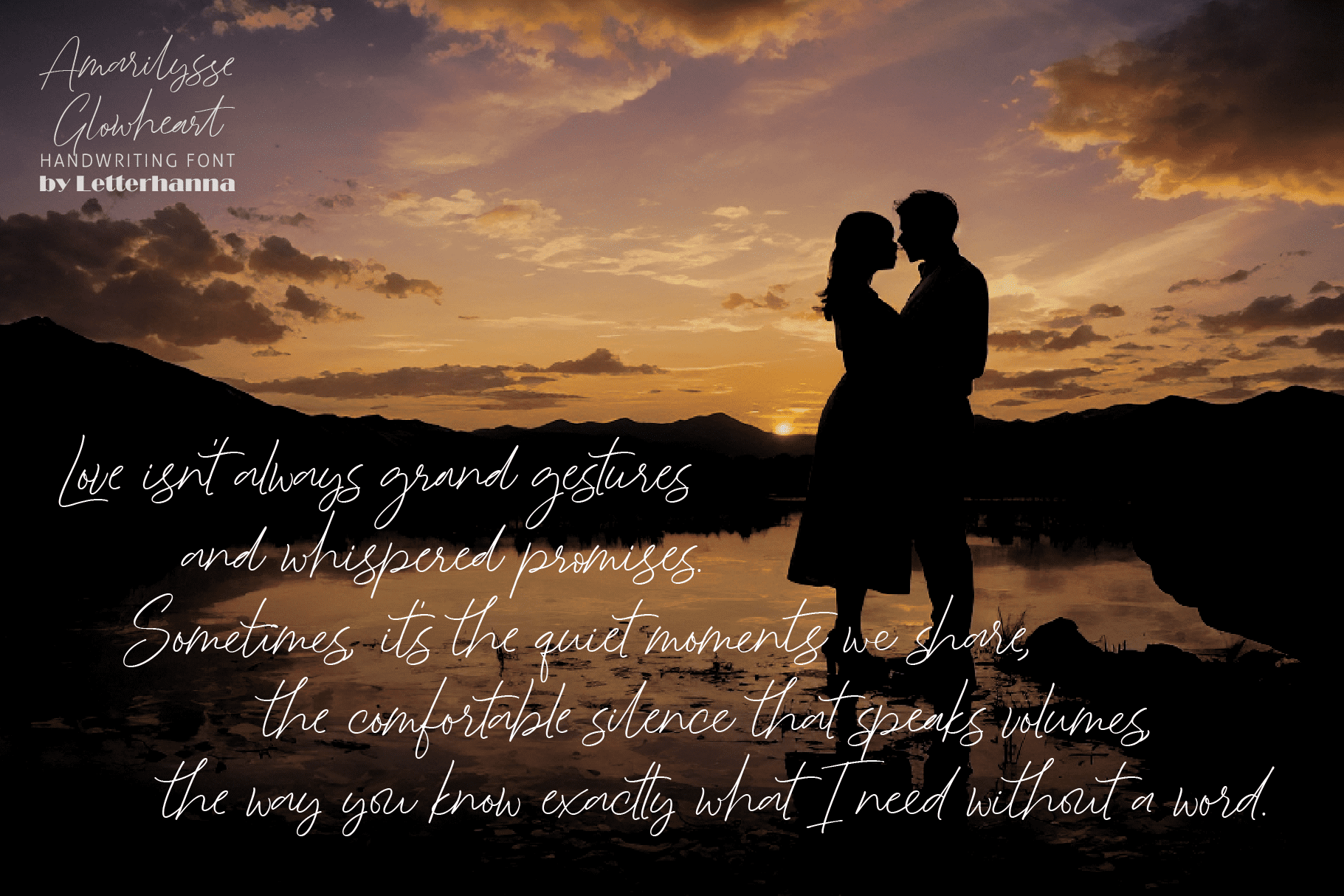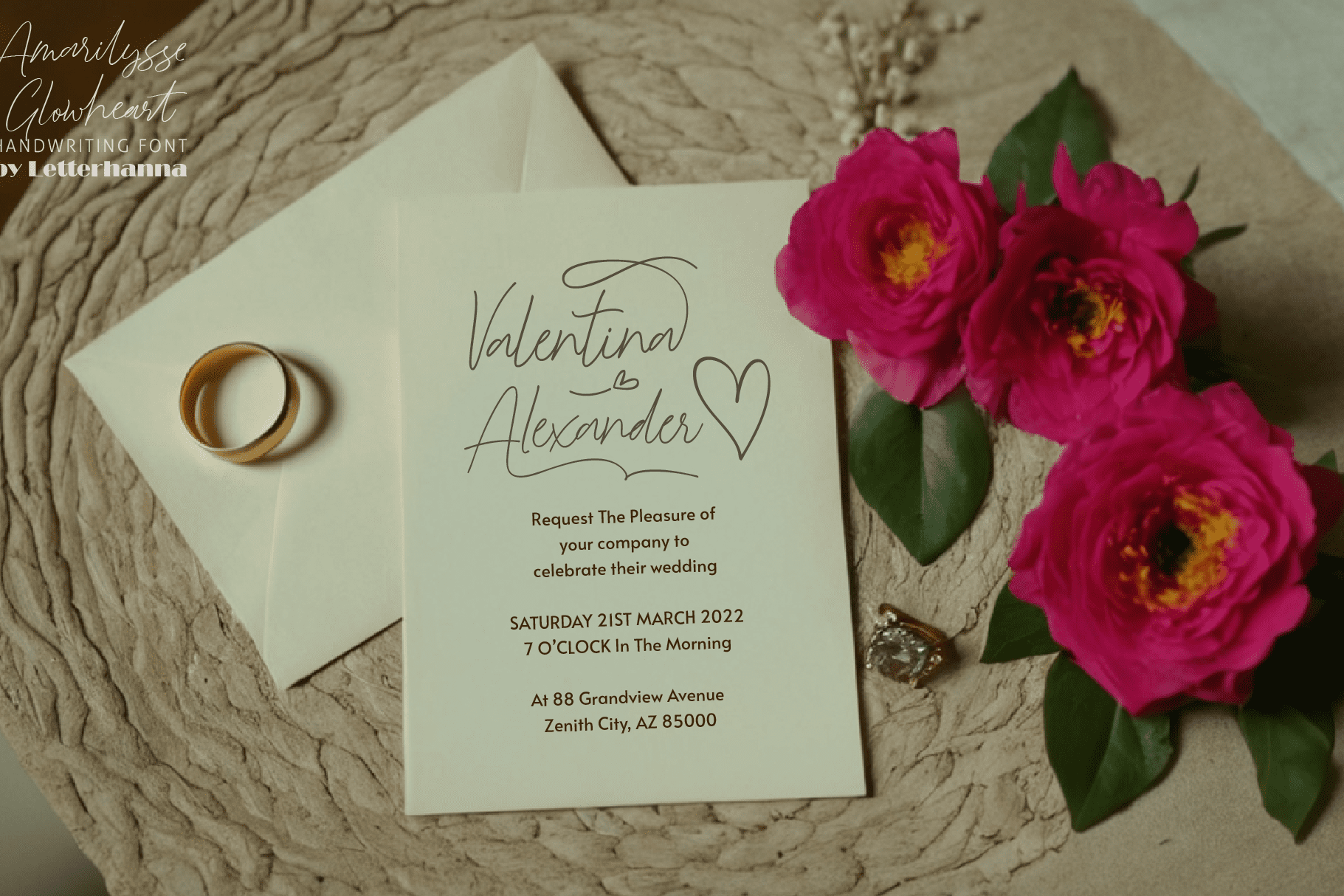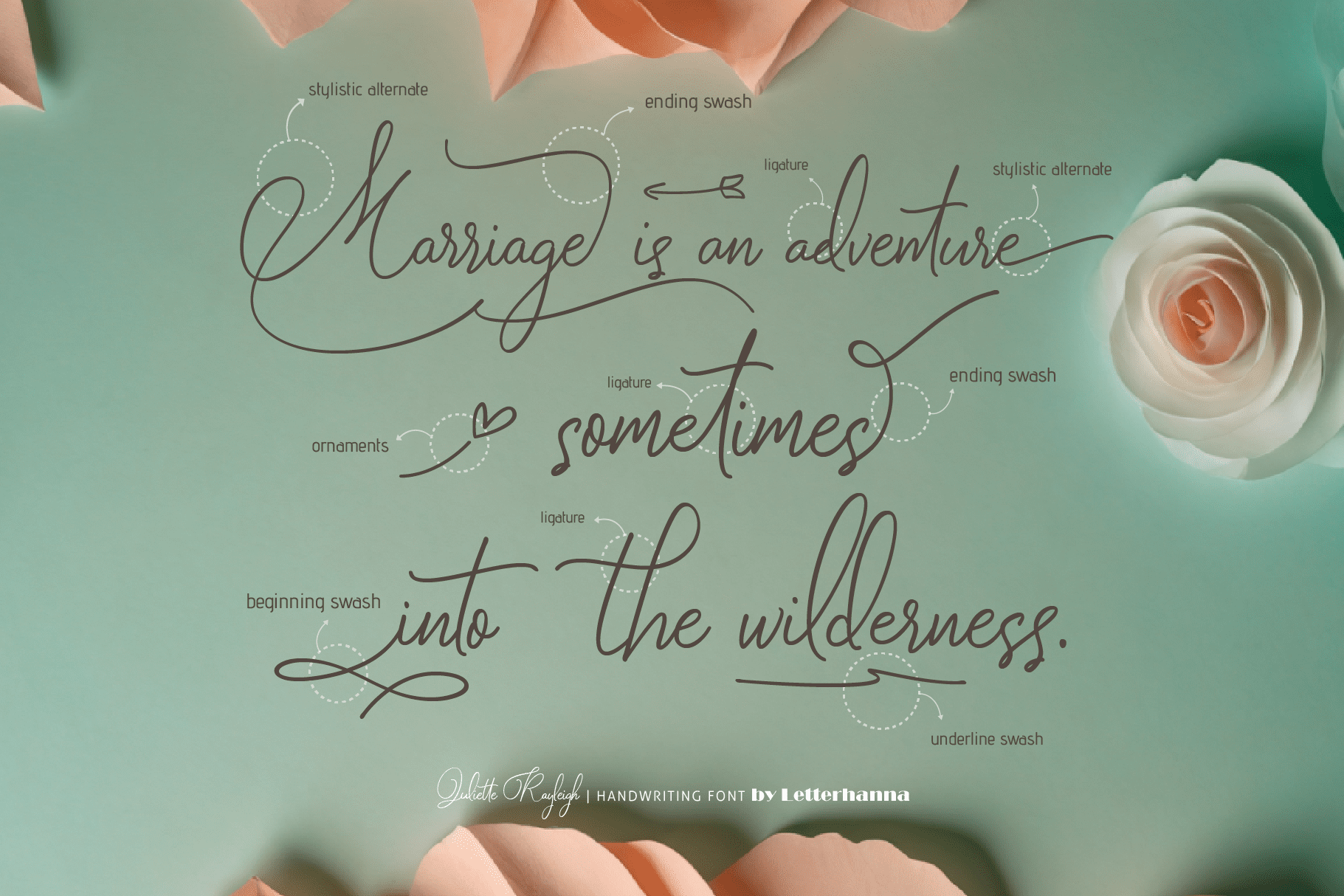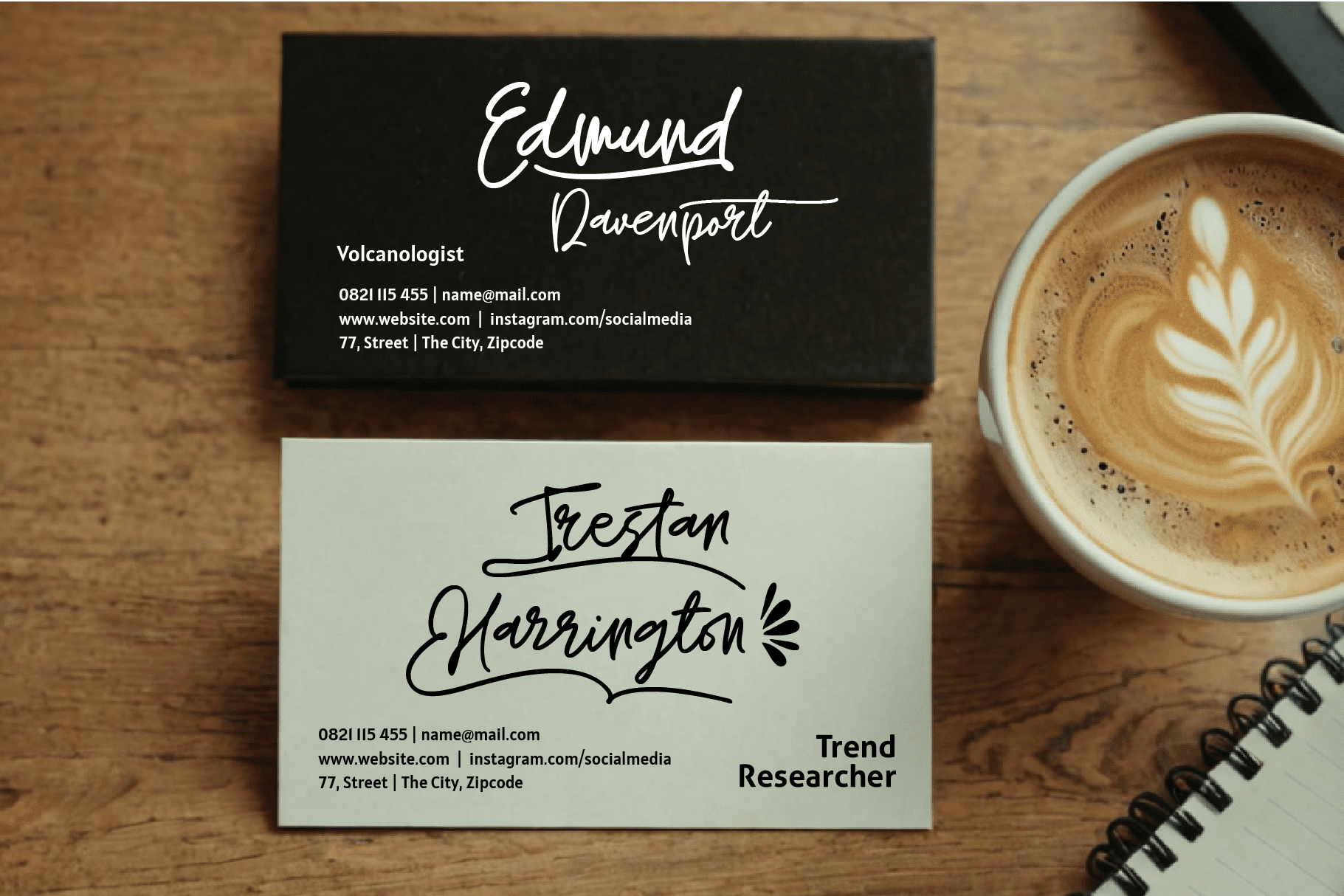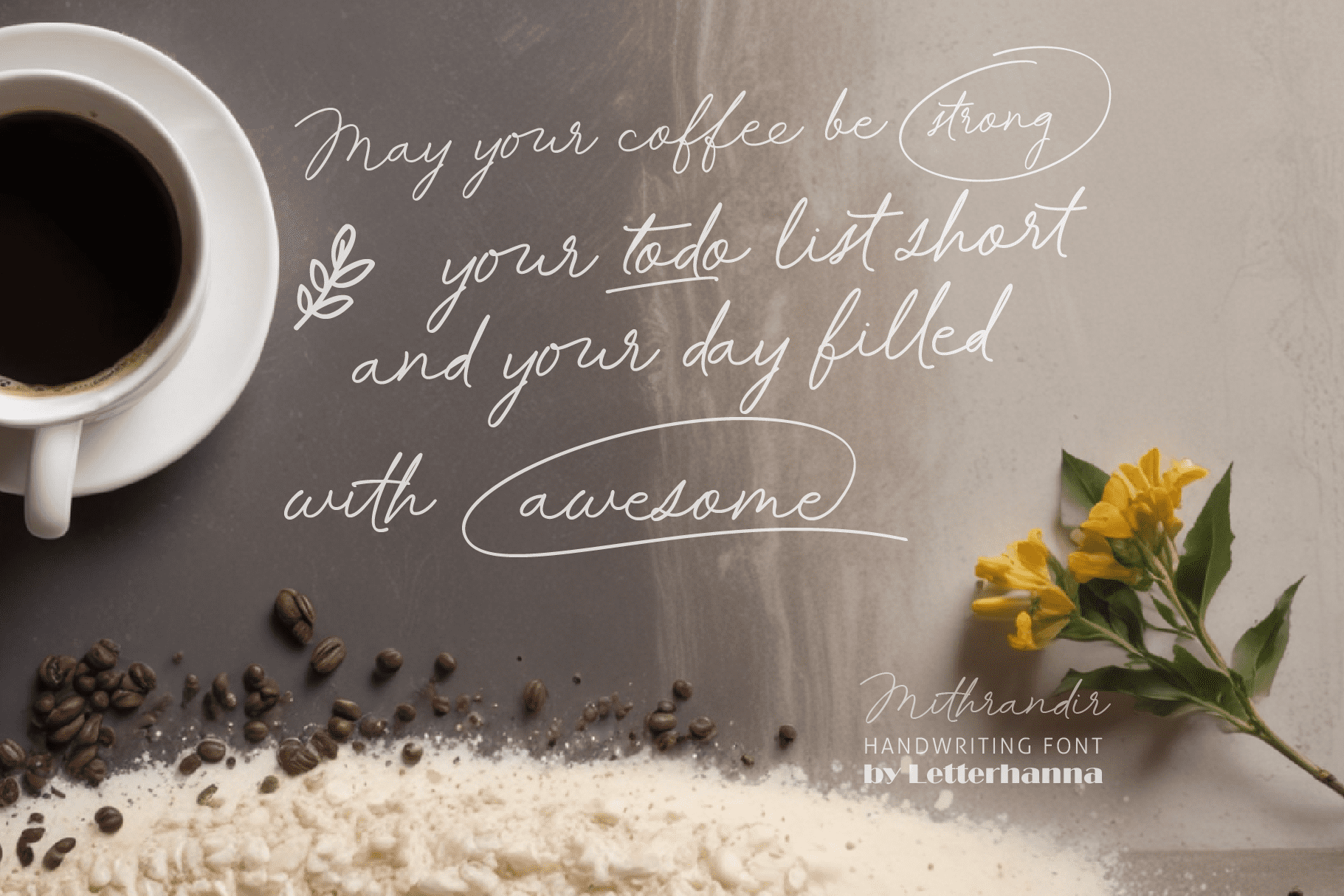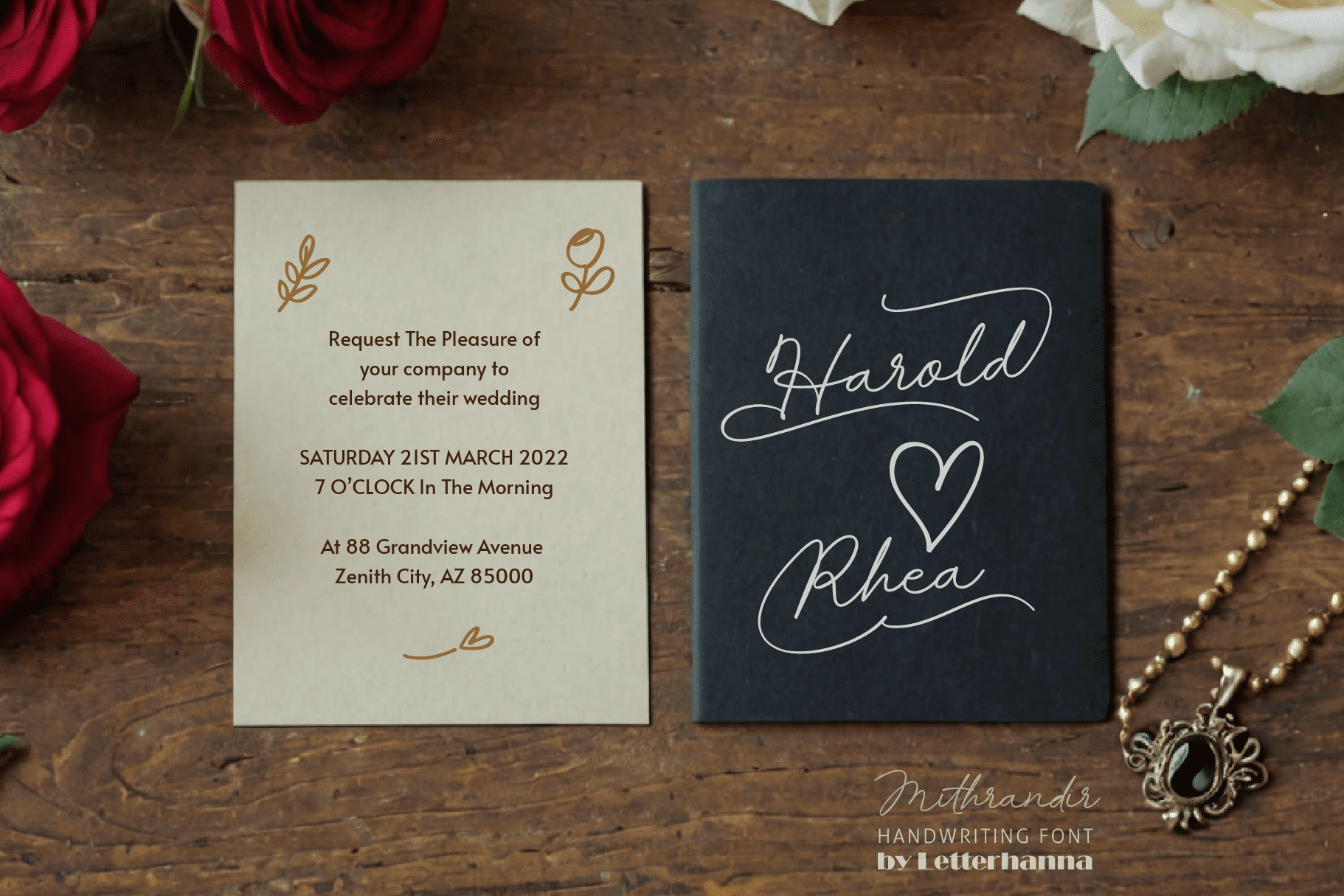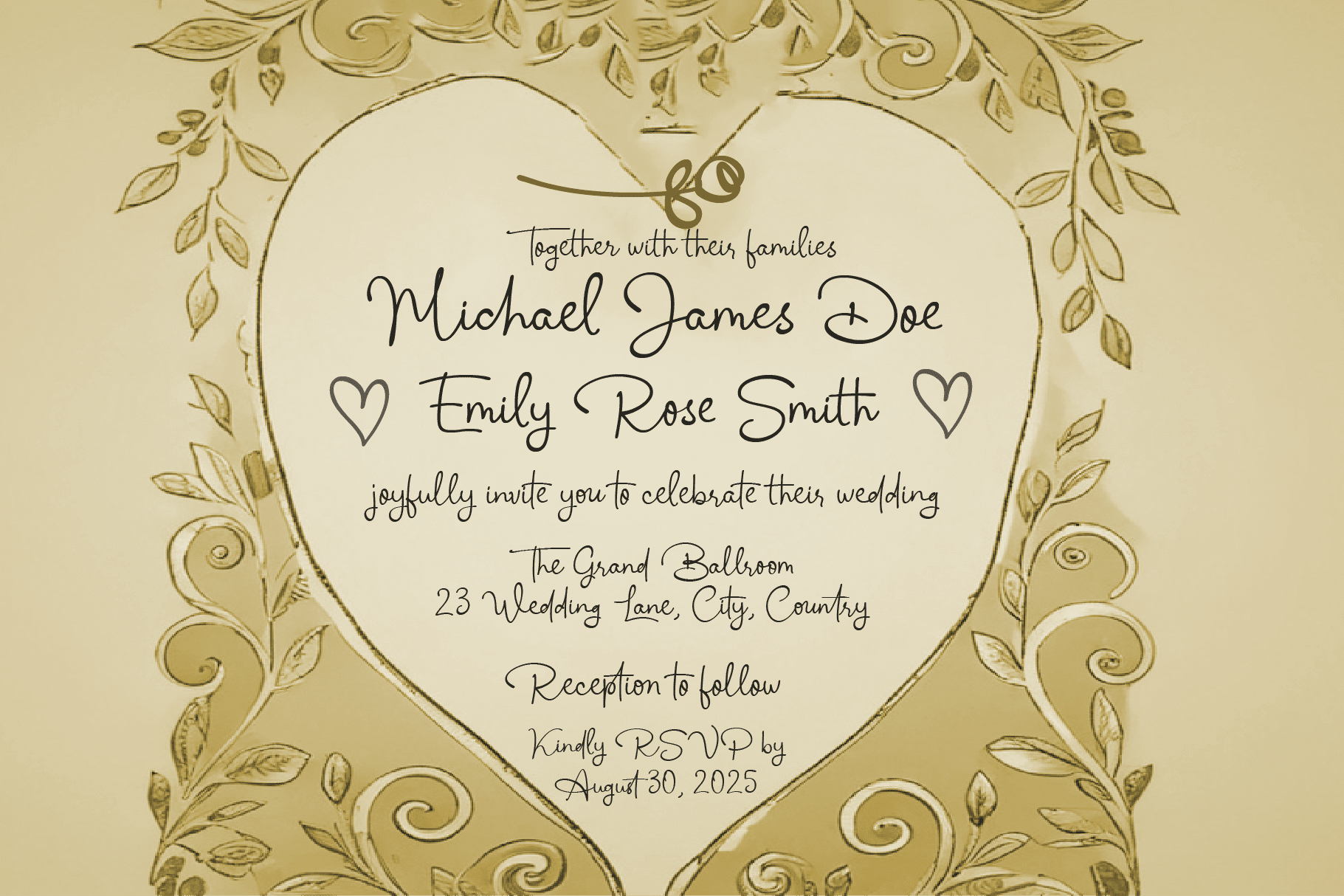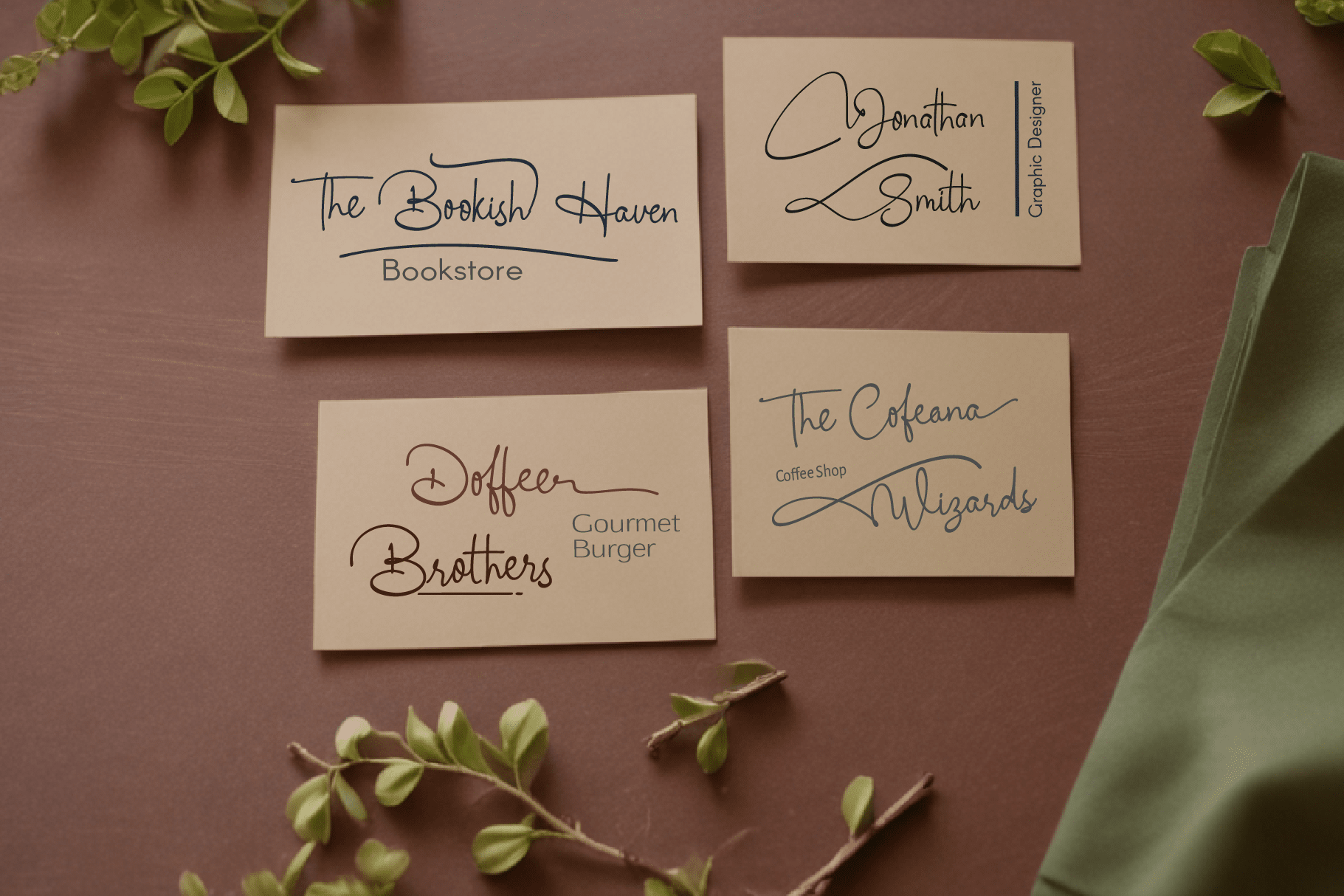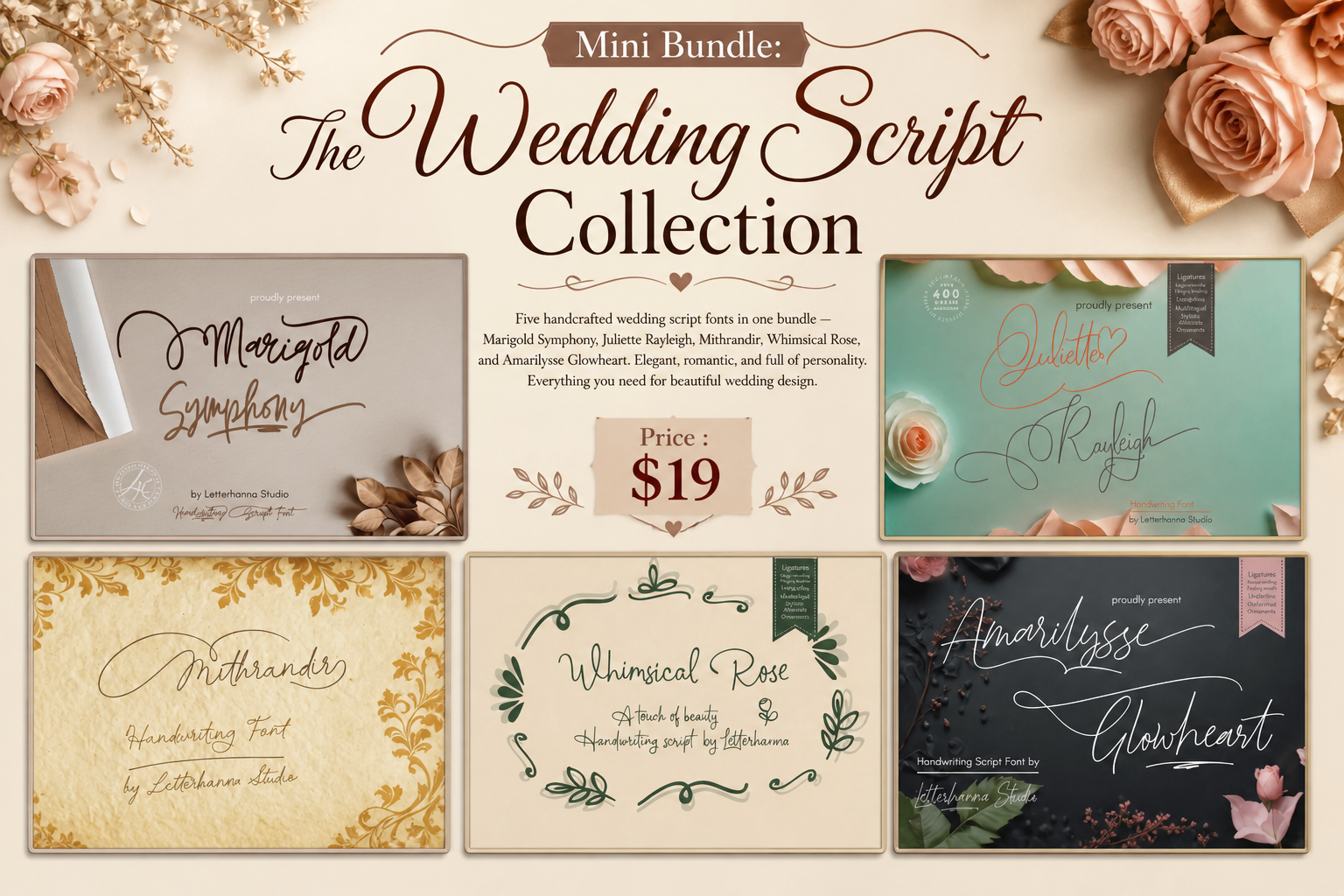
Mini Bundle: The Wedding Script Collection
Some love stories deserve a font that feels just as beautiful as the moment itself. The Wedding Script Collection is a curated mini bundle of five handcrafted script fonts from Letterhanna Studio β€” each one designed to carry the weight of your most meaningful words with grace.
Inside this bundle, you’ll find five distinct personalities united by one purpose: elegance. Marigold Symphony flows with heartfelt warmth and natural variation. Juliette Rayleigh offers classic calligraphic refinement with a contemporary edge. Mithrandir carries a timeless, stately beauty suited for the grandest occasions. Whimsical Rose brings delicate, flowery strokes full of romance and charm. And Amarilysse Glowheart radiates warmth through its smooth, glowing curves and seamless connections.
Together, these five fonts cover every mood your wedding project demands β€” from intimate and soft to formal and breathtaking.
Font in this collection is packed with professional features: stylistic alternates, beginning and ending swashes, underline swashes, ornaments, ligatures, multilingual support, and PUA encoding for effortless glyph access. Whether you’re designing invitations, seating charts, thank-you cards, monograms, or wedding signage β€” this bundle gives you the creative range to do it all.
The Wedding Script Collection brings together five of Letterhanna Studio’s most beloved handwriting script fonts in one beautifully curated bundle. From the warm, flowing personality of Marigold Symphony to the calligraphic refinement of Juliette Rayleigh, the stately elegance of Mithrandir, the romantic charm of Whimsical Rose, and the radiant warmth of Amarilysse Glowheart β€” every font was chosen to serve the beauty of your most meaningful designs. Perfect for wedding invitations, stationery, signage, and branding.